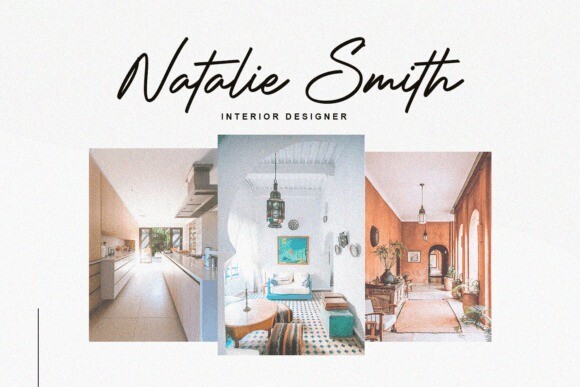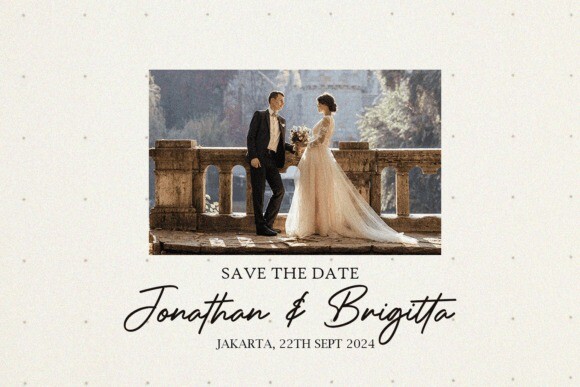
Straight Highway Font
Straight Highway Font: a chic script font characterized by its distinct curves and sophisticated inky flow that breathes life into your designs. With Straight Highway, elevate your branding projects, logos, wedding concepts, social media posts, and advertising campaigns with a dash of handcrafted elegance. Ideal for product packaging, designs, labels, photography, watermarks, and stationery, this font adds a personalized touch to any project demanding a handwritten appeal. Add a touch of elegance and style to all your creative ventures with Straight Highway, the font where style and practicality truly intertwine.